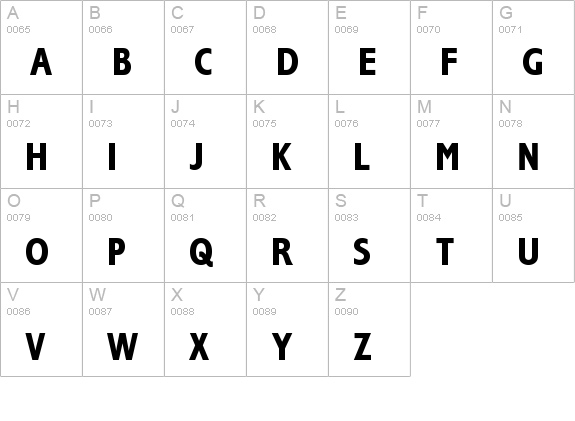
Corinthian Std Bold Condensed Font Details
Corinthian Std Bold Condensed is a strong, high-contrast, condensed-width variant in the Corinthian typeface family \xE2\x80\x94 well suited to headlines, attention-grabbing titles, and strong calls-to-action.
Corinthian Std Bold Condensed font is a striking and modern typeface that exudes confidence and strength. Its bold and condensed design makes it perfect for headlines, titles, and other attention-grabbing text. The sturdy, geometric shapes of this font give it a timeless and classic appeal, making it a versatile choice for a wide range of design projects. Best of all, Corinthian Std Bold Condensed font is available for free download at FontsMarket.com. Whether you're working on a poster, website, or branding project, this font will add a bold and impactful touch to your designs. Don't miss out on the opportunity to enhance your projects with this stylish and eye-catching typeface - download Corinthian Std Bold Condensed font today for free!